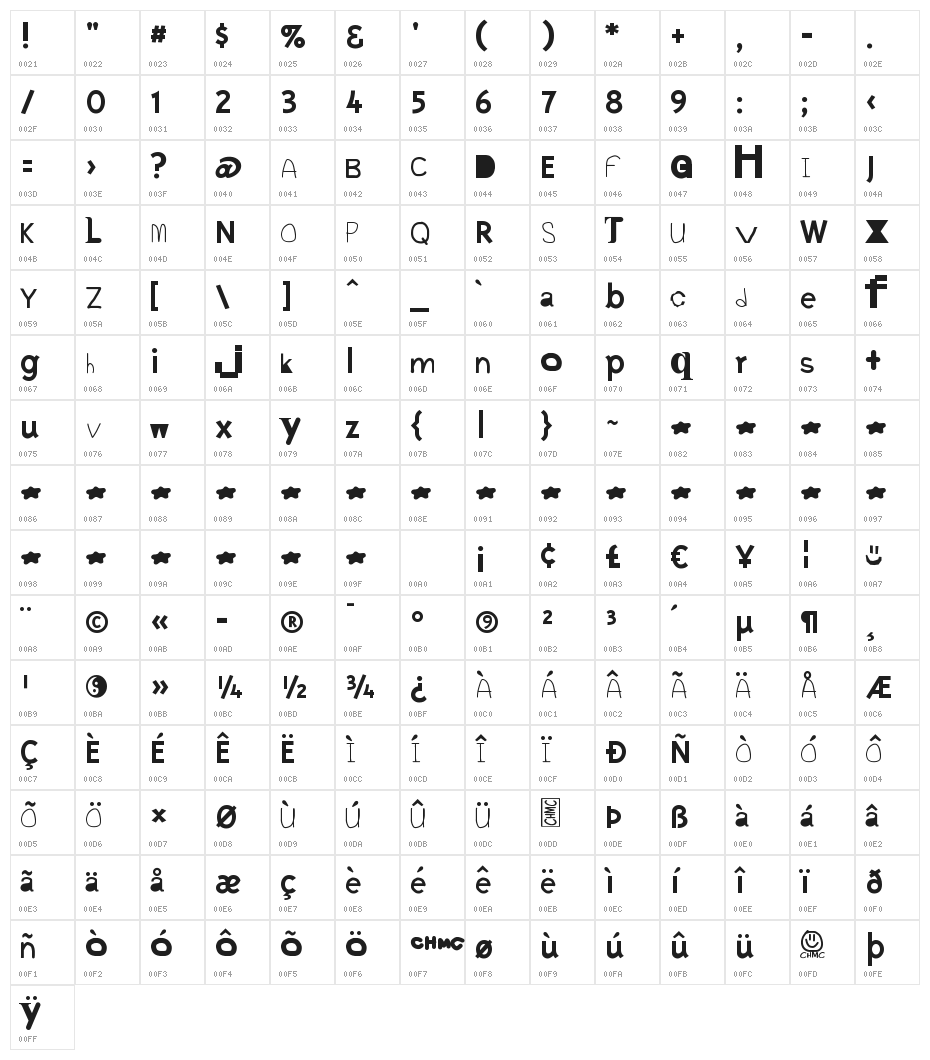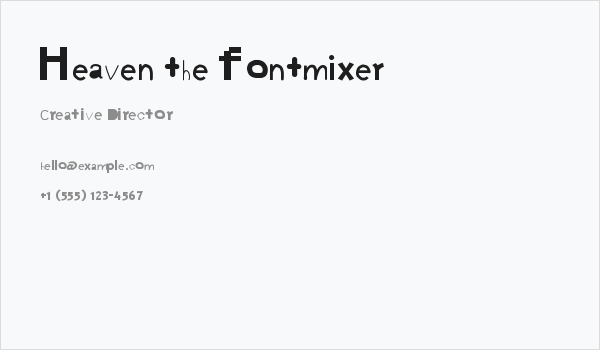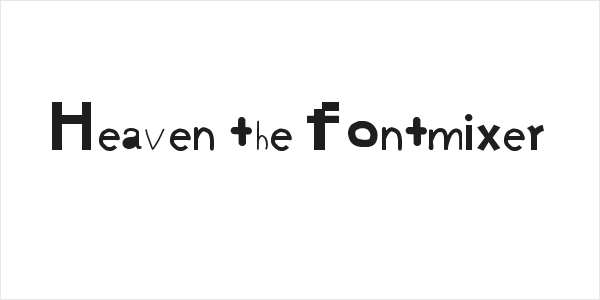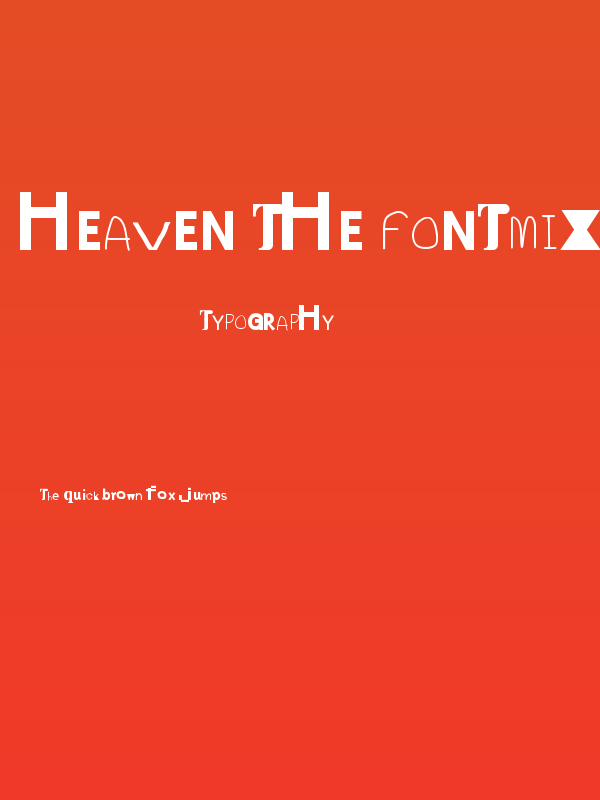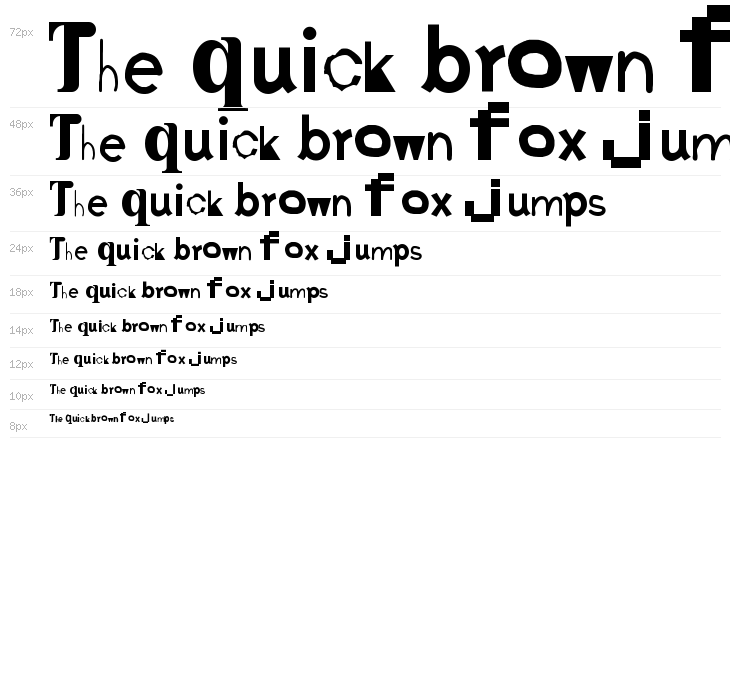
Heaven the fontmixer Font
Heaven the fontmixer Description
This font is a playful and eclectic mix of styles, combining elements of both serif and sans-serif characteristics. Each letter has a unique design, with some featuring bold, thick strokes while others are more delicate and thin. The uppercase letters are particularly varied, with some having geometric shapes and others more traditional forms. The lowercase letters continue this theme of diversity, offering a quirky and artistic feel. Numbers and special characters are equally distinctive, adding to the font's overall whimsical and creative appearance.
| Proposed Projects | Ideal for creative projects such as posters, album covers, and artistic branding that require a unique and eye-catching typeface. |